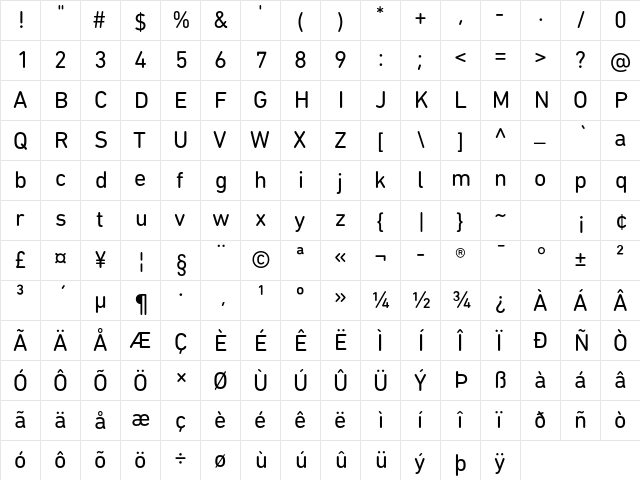
DIN Next Rounded LT Pro Regular Font Preview
| Foundry | Linotype GmbH |
| Designer | Linotype Design Studio |
Design Context for DIN Next Rounded LT Pro Typeface
DIN Next Rounded LT Pro softens its letterforms with rounded terminals, giving it an approachable, friendly quality that works well in consumer-facing and digital contexts. The delicate stroke weight brings airiness and refinement to layouts.
A natural fit for tech startups, health and wellness brands, children's products, and friendly consumer apps.
Font Pairing: Pairs well with a rounded or humanist sans for body copy, maintaining the friendly tone without relying on DIN Next Rounded LT Pro to carry extended reading.
Pro Tip: Pair DIN Next Rounded LT Pro with a geometric sans for a balanced system — the rounded softness works as a warm counterpoint to harder-edged companions.